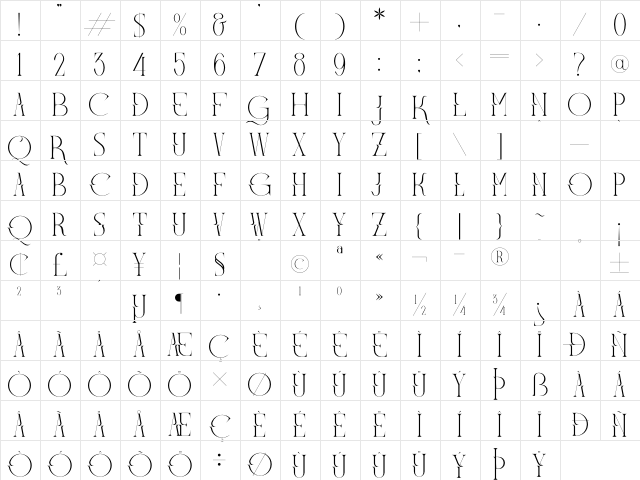
Complete Meglona Regular glyph index. Displaying only characters natively supported by Meglona Regular font.
Meglona is a composed and adaptable typeface that performs quietly and consistently across a wide range of design contexts.